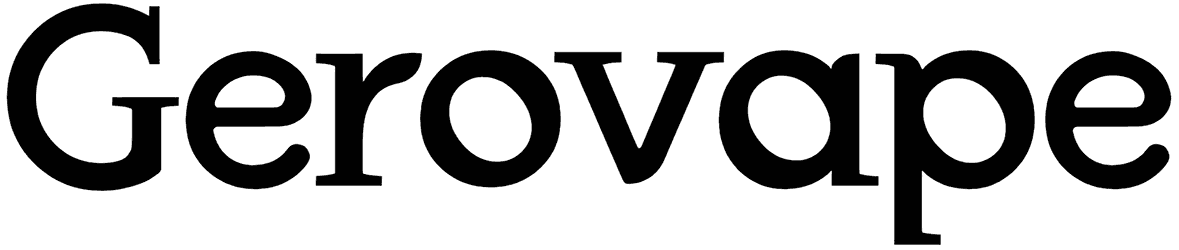
Gerovape Font
Gerovape is a font that combines different aspects of old and new fonts to create completely creative letters with a modern flavor. This serif font can give personality and seriousness to your art designs and look amazing on business cards, books, and magazines.
Gerovape has simple and upright letters that are gently and firmly placed together and can work differently from regular and classic serif fonts.